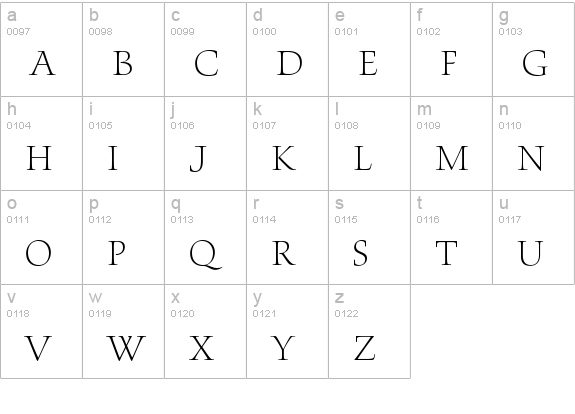
Waters Titling Pro Light Font Details
Waters Titling Pro Light is a refined, elegant variant in the Waters typeface family \xE2\x80\x94 well suited to elegant body text, refined sub-headings, and luxury branding.
Waters Titling Pro Light font is a sleek and modern typeface that exudes elegance and sophistication. With its slender and refined letterforms, this font is perfect for adding a touch of class to any design project. The Light weight of Waters Titling Pro allows for a delicate and airy feel, making it ideal for titles, headlines, and other prominent text elements. Its clean lines and balanced proportions create a sense of harmony and visual appeal. This font is not only aesthetically pleasing but also highly versatile. Whether you're designing a logo, a website, a brochure, or any other creative endeavor, Waters Titling Pro Light can effortlessly elevate your design to the next level. And the best part? Waters Titling Pro Light font is available for free! You can easily download it from FontsMarket.com, a trusted source for high-quality fonts. By offering this font for free, the creators of Waters Titling Pro Light have made it accessible to designers and enthusiasts alike, without compromising on its exceptional quality. So, why wait? Enhance your projects with the sophistication and elegance of Waters Titling Pro Light font. Download it now from FontsMarket.com and unlock a world of design possibilities!